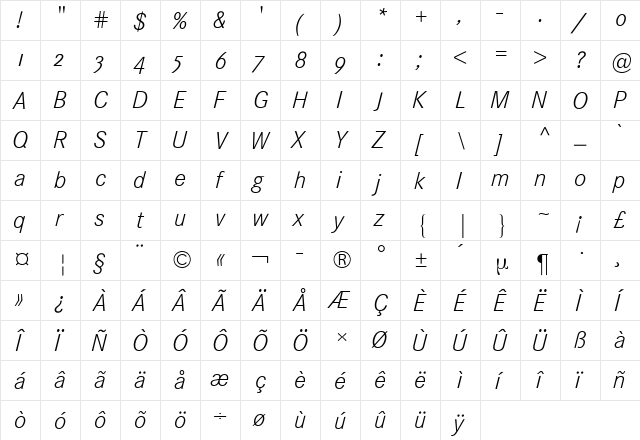
Corporate S Expert BQ Light Italic Font Preview
Design Context for Corporate S Expert BQ Typeface
Corporate S Expert BQ takes a measured approach to typography — its balanced proportions and neutral character make it a reliable workhorse for both digital and print work. Its italic angle brings a sense of urgency and motion to the letterforms. Its slender proportions lend an understated elegance to any composition.